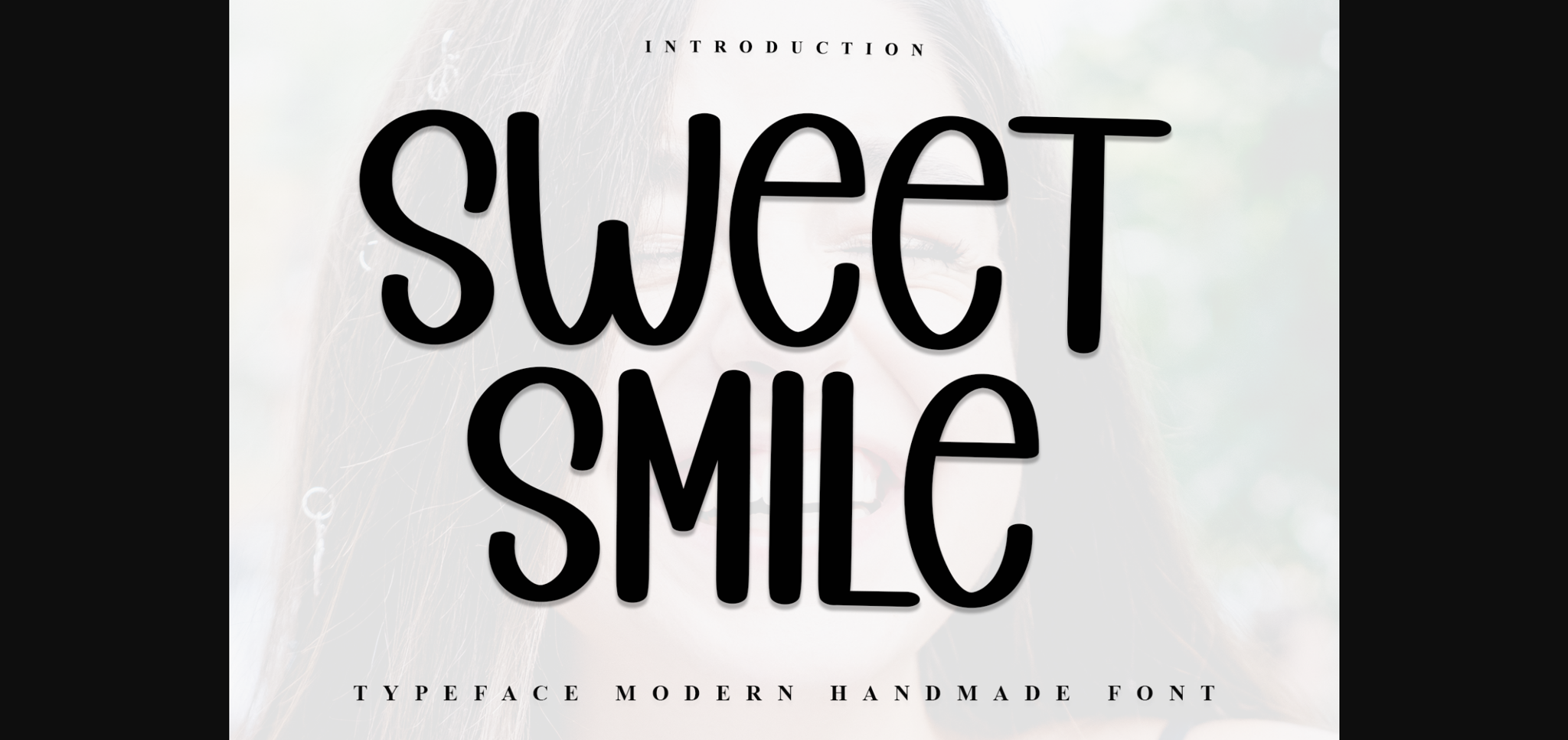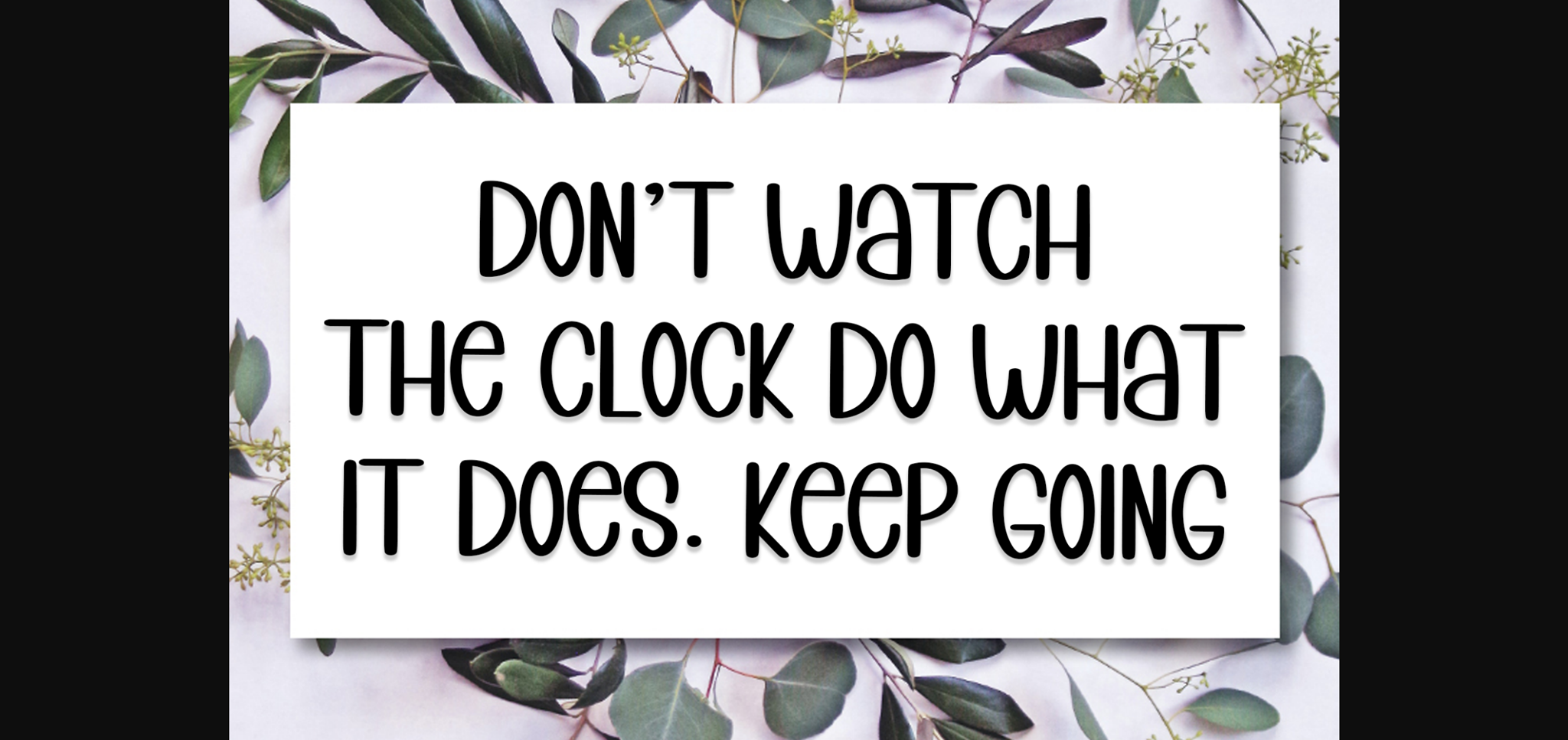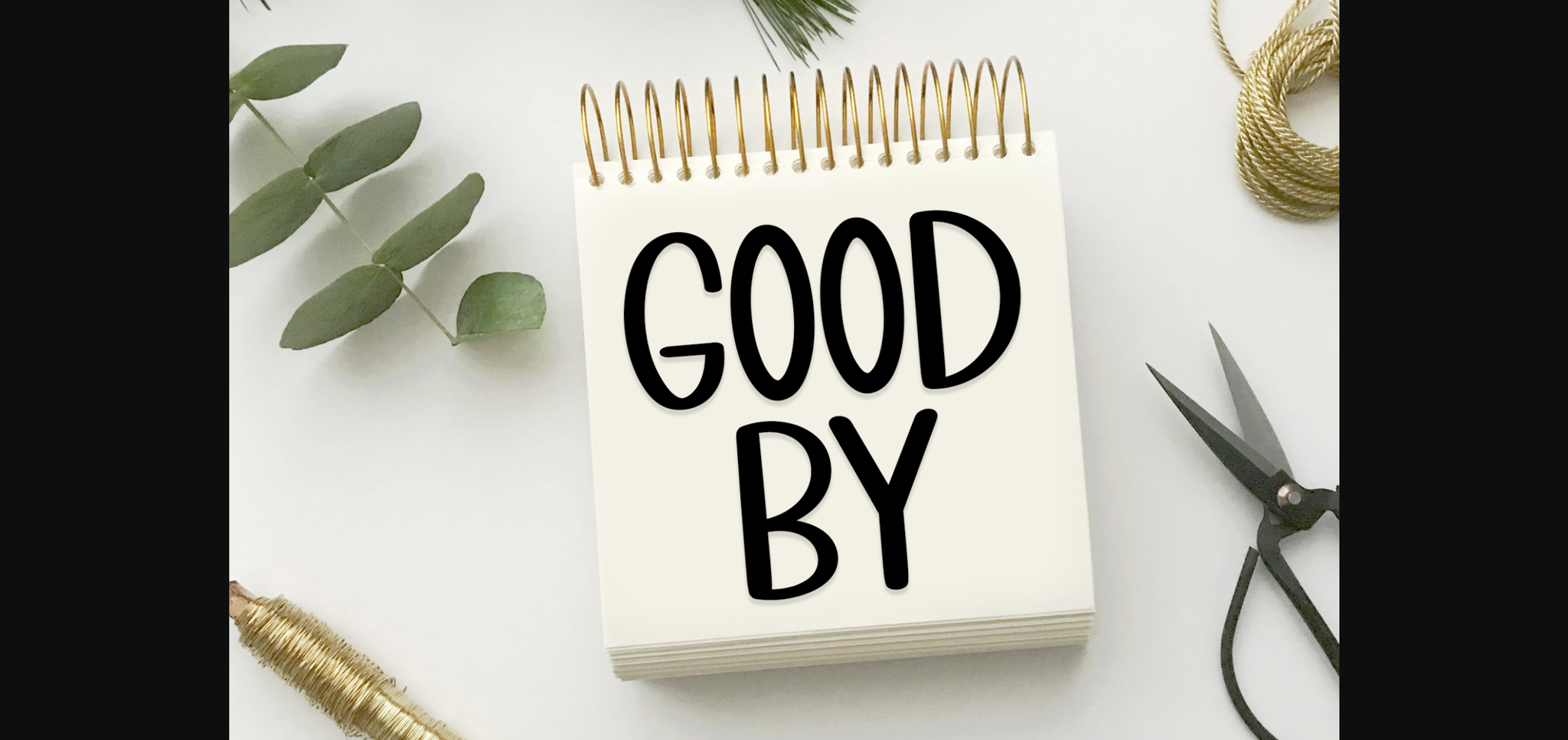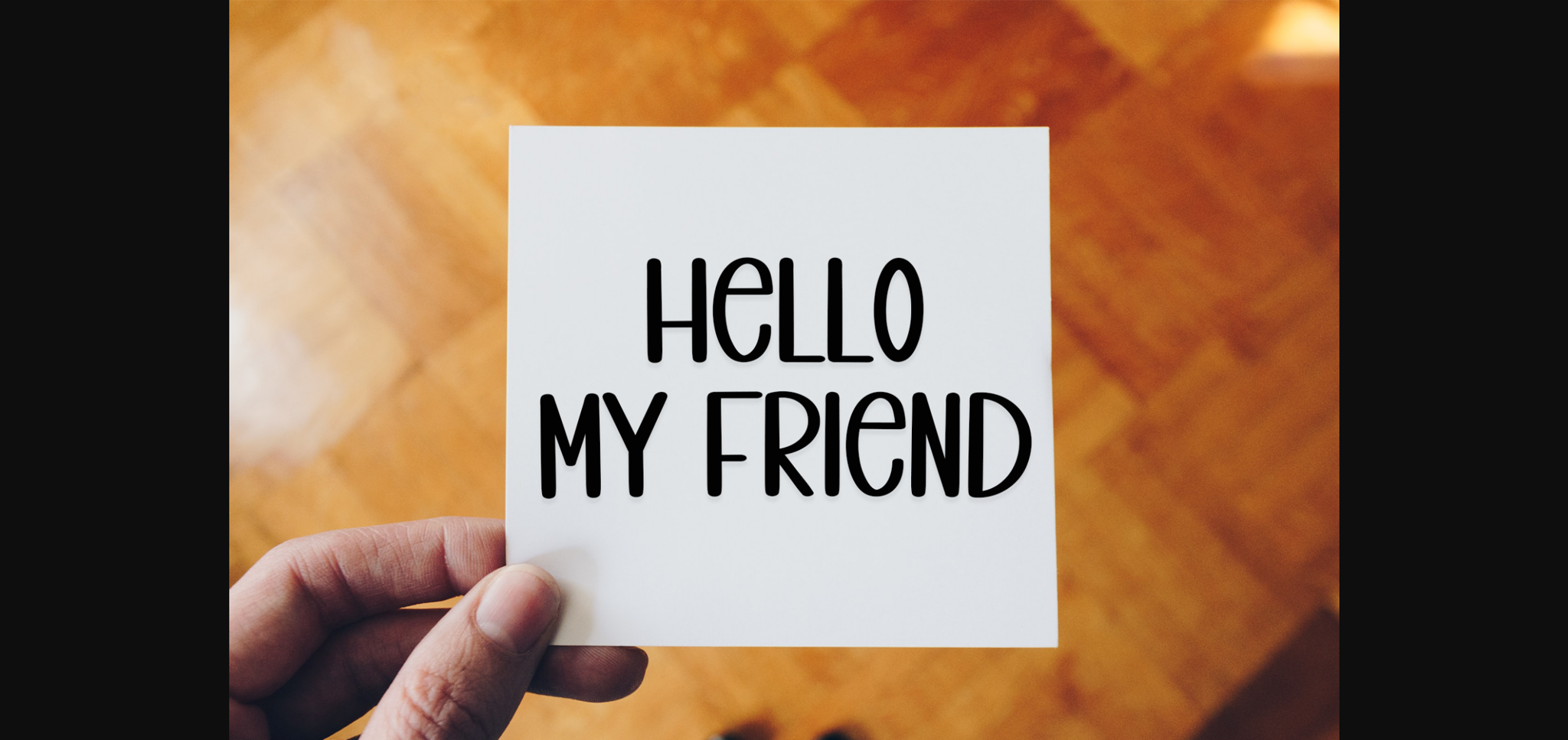
About Sweet Smile Font
Sweet Smile is a charming sans-serif font imbued with a sense of freshness and casual elegance. Its fluid strokes and organic lines evoke a laid-back vibe, making it perfect for various design projects. Whether used for branding, invitations, or social media graphics, Sweet Smile adds a touch of warmth and personality.